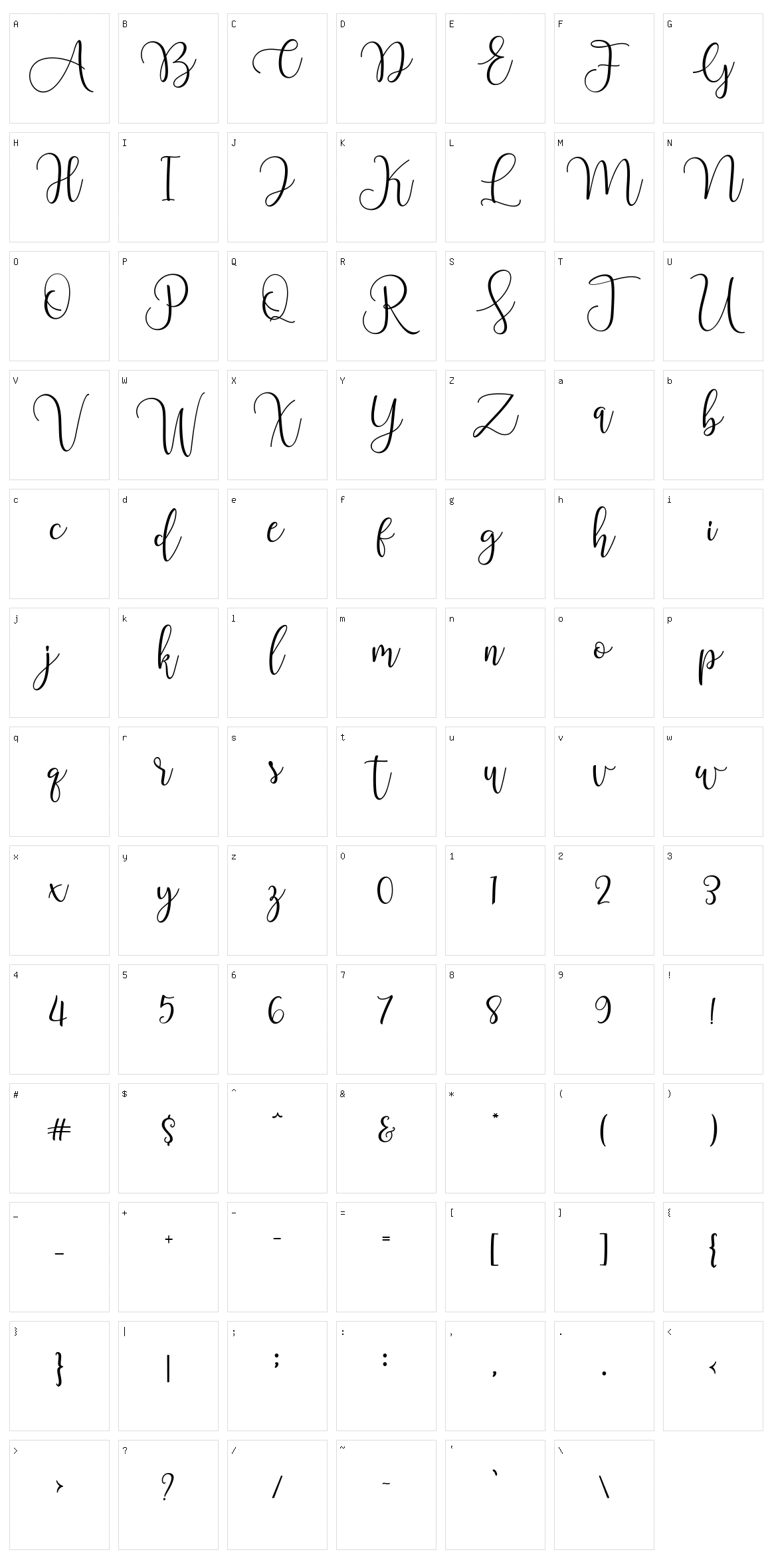
The free font Chourush is carefully designed by Alif Quentin, showcasing a thoughtful balance of creativity and usability and falls under the Script font style. When you download the ZIP file, it contains only 182.43 KB of font files, making it lightweight and quick to download. Please review the license details below to understand permitted usage and distribution rights. If license information is not available, we recommend using this font for personal projects only or contacting the author directly for commercial usage permissions.